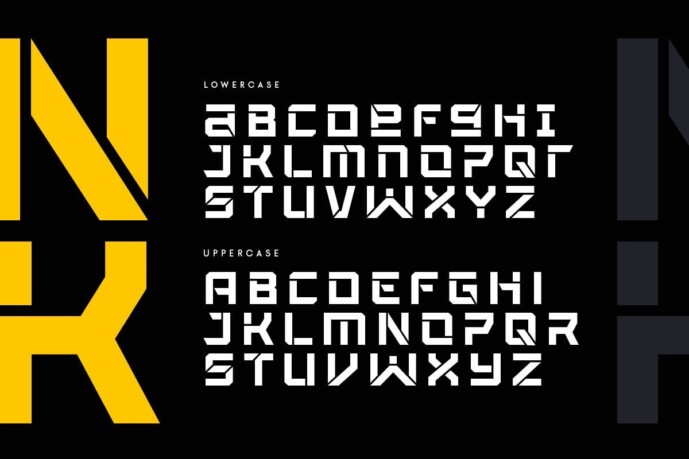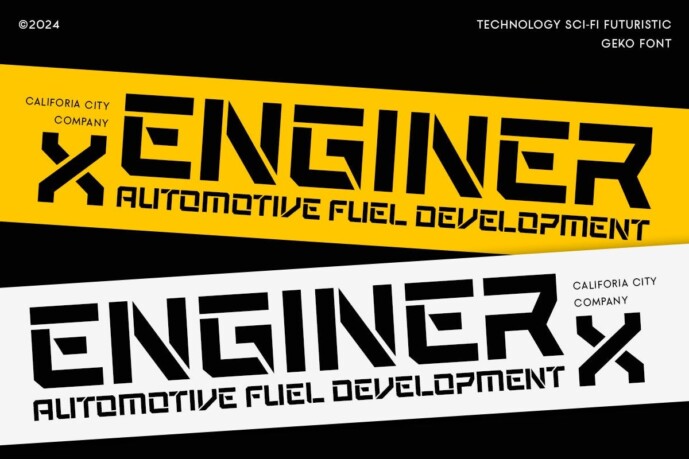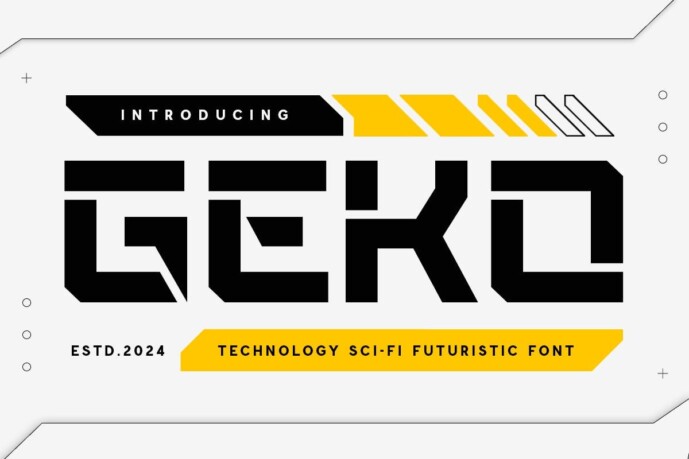
Geko Font
GEKO FONT, a modern sci-fi font designed for futuristic and innovative designs. Perfect for projects that need a touch of the future, GEKO combines clean lines with cutting-edge aesthetics to bring your ideas to life.
The story of GEKO:
GEKO was inspired by the limitless possibilities of the future. Imagine a world where technology and design seamlessly merge, creating environments that are both functional and visually stunning. This font reflects this vision, offering a sleek, modern look that is perfect for any project that aims to make a bold statement. GEKO is ideal for designers who want to push the boundaries and explore new frontiers in their work.